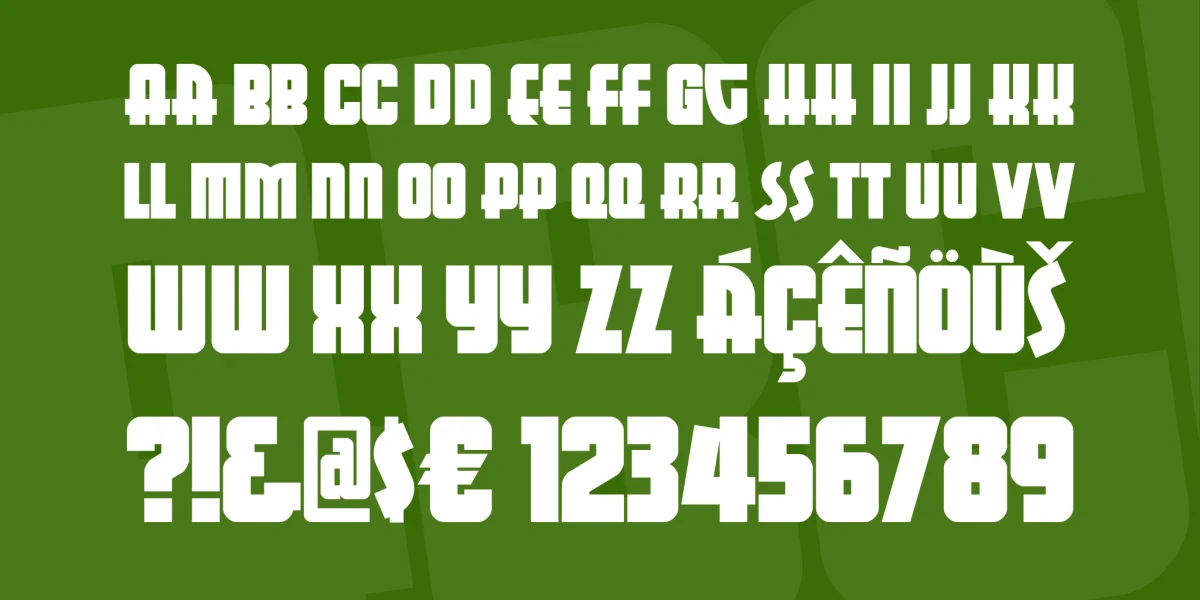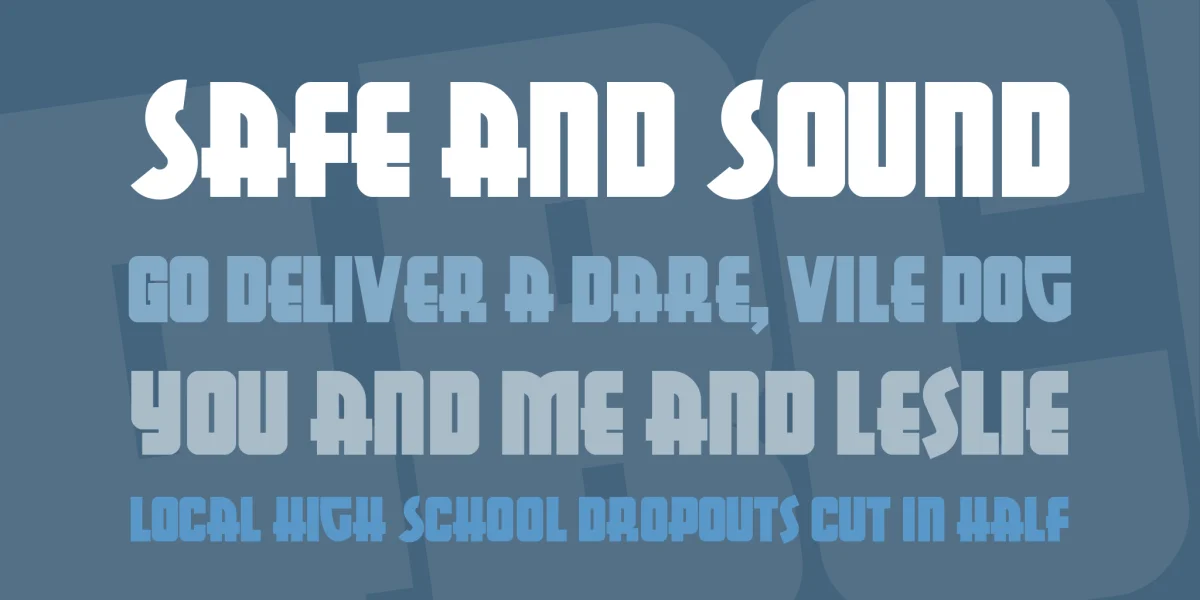
This display font, similar in concept to Huxley Vertical but much, much beefier, is based on lettering from a poster for Italo Oil, designed in 1993 by George Guillermaz. The name was chosen to highlight some of the font’s more interesting characteristics, and is based on the assumption that, if there’s an Aerosmith, there must be an …